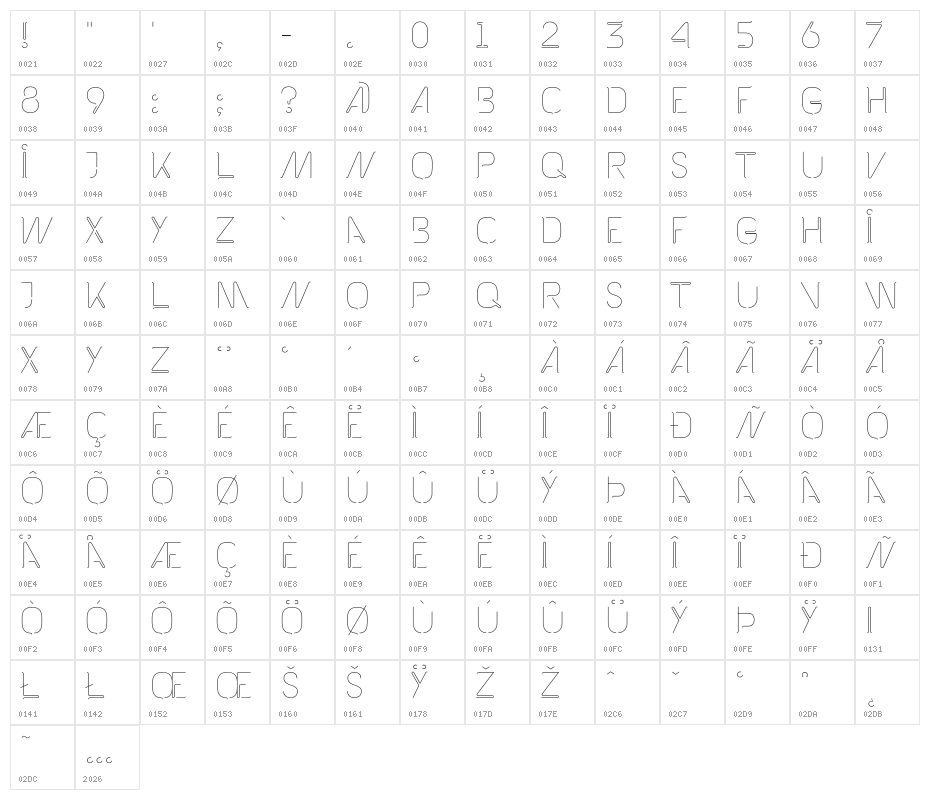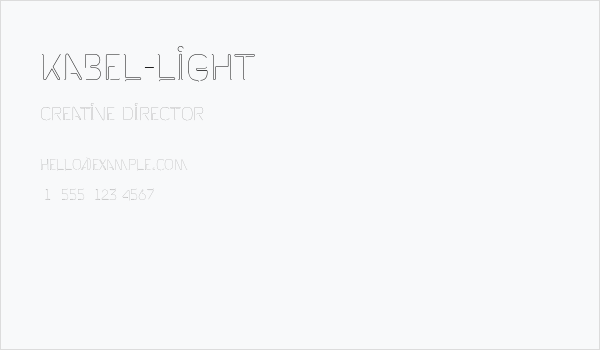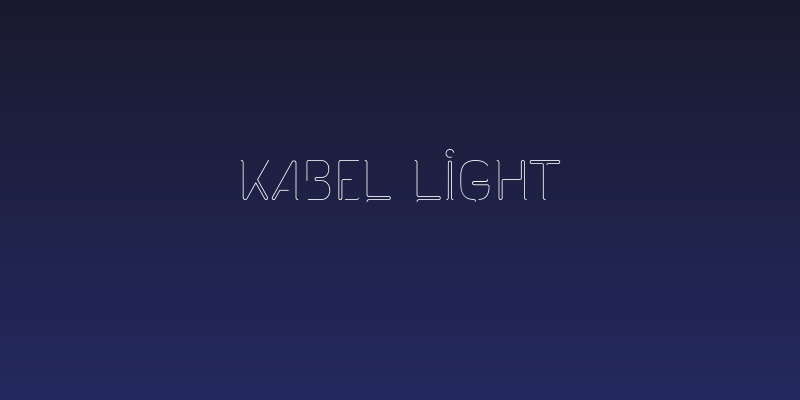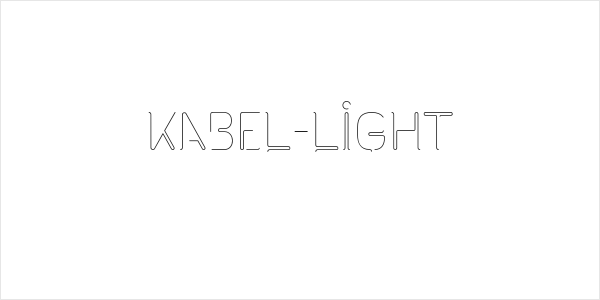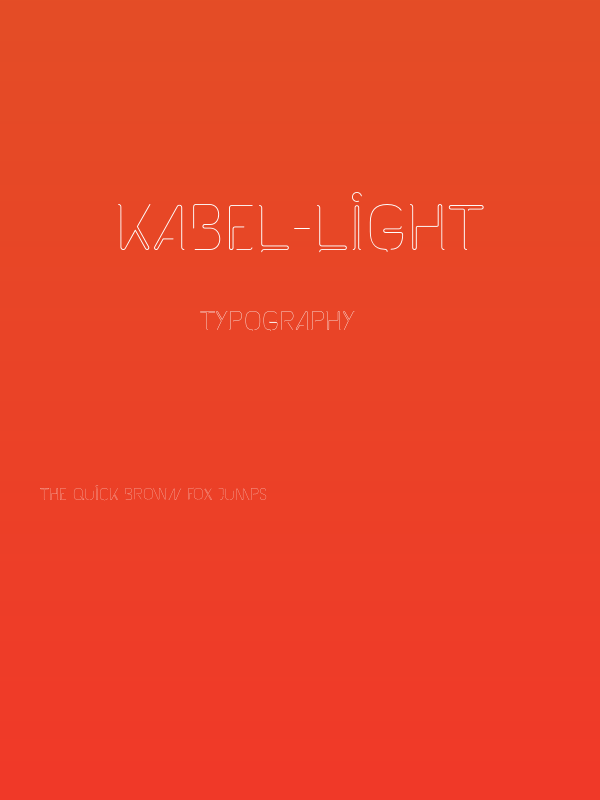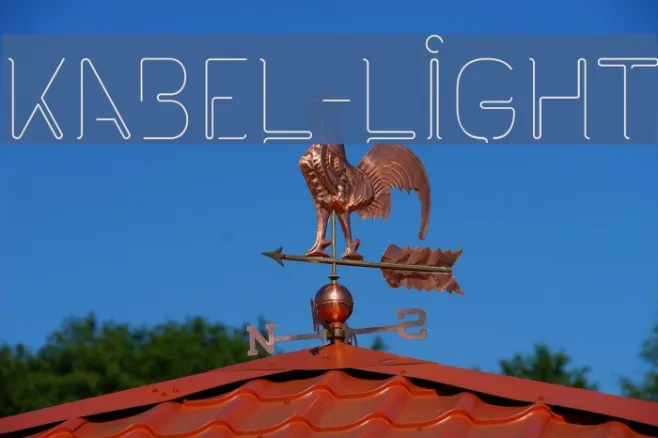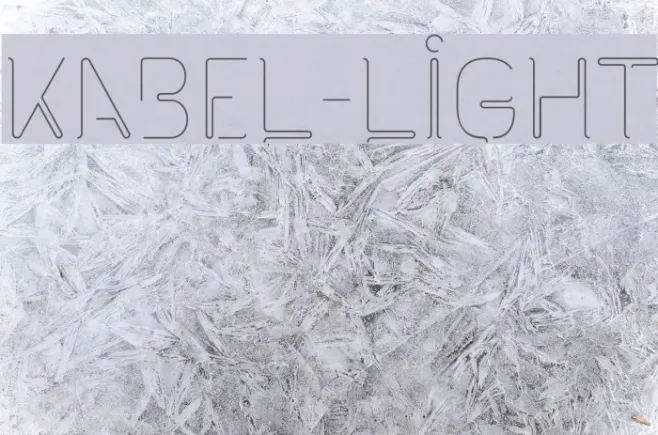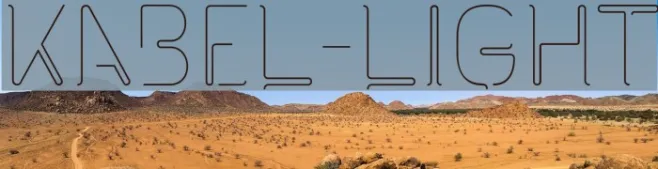
Kabel-Light Font
Kabel-Light Description
This font features a geometric and minimalist design with clean, straight lines and a modern aesthetic. The characters are constructed with uniform stroke widths, giving it a sleek and contemporary look. The uppercase letters are bold and distinct, while the lowercase letters maintain a consistent style. The numerals are clear and easy to read, complementing the overall design. Special characters are included, maintaining the same geometric style. This font is versatile, suitable for a variety of design projects that require a modern and clean appearance.
| Proposed Projects | Ideal for branding, advertising, modern web design, and editorial layouts. |